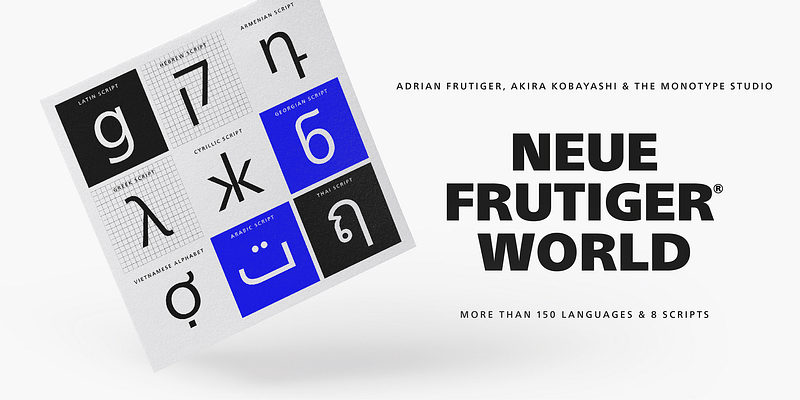
Neue Frutiger World is designed for global use with an impressive range of 10 weights, from Ultra Light to Extra Black, with matching italics. It embodies the same warmth and clarity as Adrian Frutiger’s original design, but allows brands to maintain their visual identity, and communicate with a consistent tone of voice, regardless of the language. Neue Frutiger World supports more than 150 languages and scripts including Latin, Greek, Cyrillic, Georgian, Armenian, Hebrew, Arabic, Thai and Vietnamese. “Before Neue Frutiger World it was not an easy task for western brands to find families in Arabic, Hebrew, Thai and Vietnamese which match with their Latin,” says Monotype type director Akira Kobayashi, who led the Neue Frutiger World project. “They may find a type with closer expression, but there was no guarantee if the bold version in the non-Latin family matches the bold in their Latin. Neue Frutiger World offers a better solution.” In addition to Neue Frutiger World’s linguistic versatility, it works hard across environments – suited to branding and corporate identity, advertising, signage, wayfinding, print, and digital environments. The Neue Frutiger World fonts can be paired with Monotype’s CJK fonts.